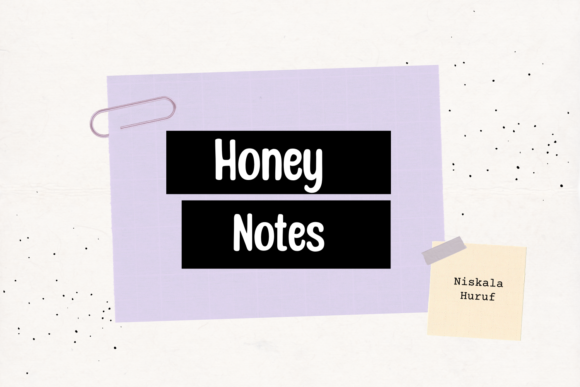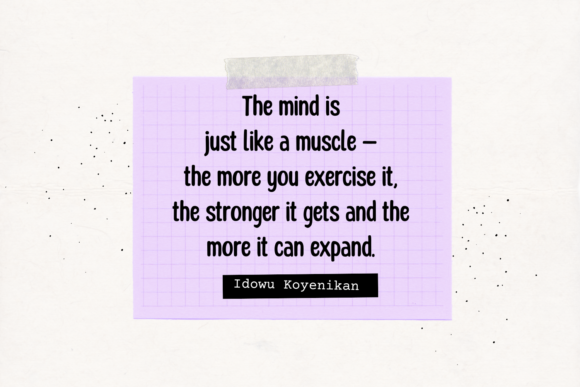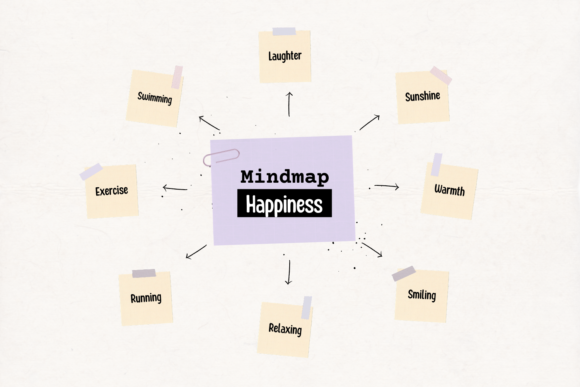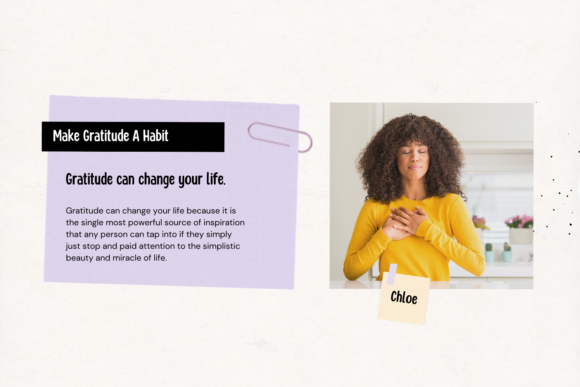
Honey Notes Font
About the Honey Notes Font
Presenting Honey Notes Font, a unique and stylish typeface that will make your work stand out. Honey Notes is a simple and neat handwritten font that can be used for all chalkboard quotes or teaching material! Its authentic look and feel will add a personal and realistic feel to your designs.
Honey Notes excels in applications requiring a friendly, approachable aesthetic. Ideal uses include short text in branding materials like logos or taglines, hand-lettered quotes on social media graphics, and packaging for artisanal products. It also works well for invitations and short-form advertising copy where a personal touch is desired. However, its handwritten nature makes it less suitable for large blocks of body text or UI elements where readability is paramount.
Pairing Honey Notes with a clean sans-serif like Open Sans for body text creates a balanced contrast, maintaining the handcrafted charm while ensuring legibility. For a more playful feel, consider pairing it with a rounded geometric sans-serif such as Poppins. A contrasting serif like Lora could also add a touch of sophistication, particularly useful for branding projects aimed at a slightly older demographic.
Honey Notes projects a warm, inviting personality. Its slightly imperfect character lends itself to designs emphasizing authenticity and handcrafted quality, making it a suitable choice for brands focused on natural products, small businesses, or educational materials.